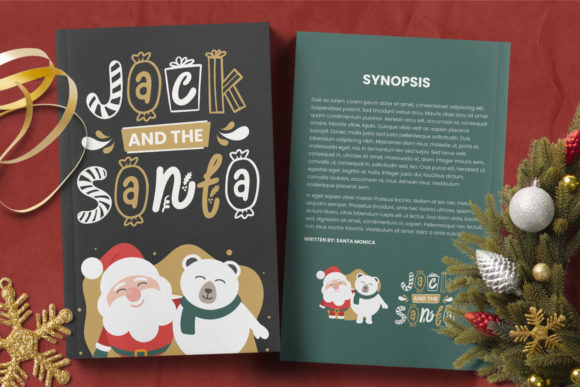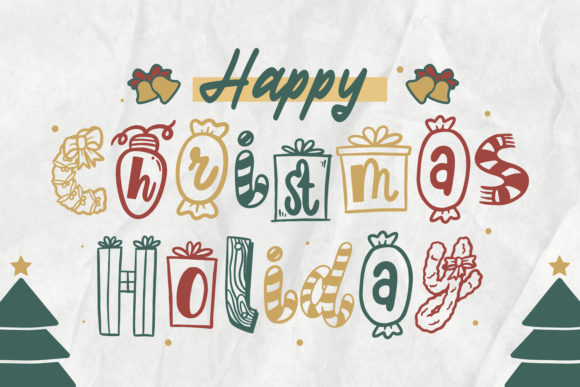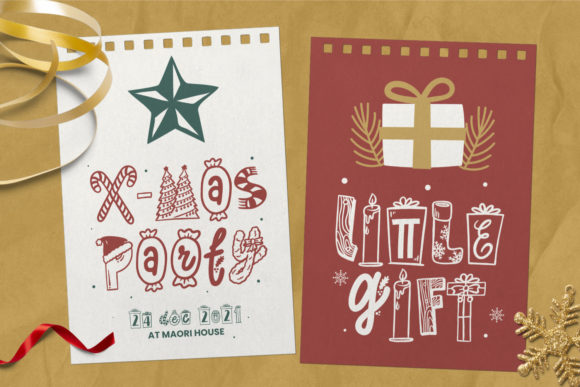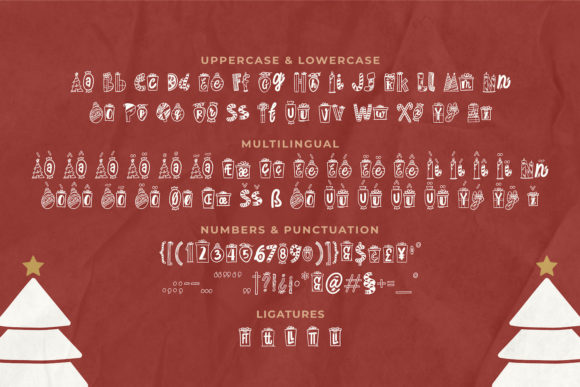
Introducing Giftmas Font: The Ultimate Festive Dingbats Font for Your Holiday Designs
Are you looking for a font that captures the essence of the holiday season? Do you want to add a touch of festivity and joy to your designs, crafts, and projects? Look no further than Giftmas Font, a lovely and festive dingbats font that’s perfect for designers, crafters, and anyone looking to spread some holiday cheer.
What is Giftmas Font?
Giftmas Font is a unique and natural dingbats font that’s specifically designed to bring a sense of festivity and fun to your designs. Its natural and unique style makes it incredibly fitting for a large pool of designs, from holiday cards and invitations to craft projects and DIY decorations. With Giftmas Font, the only limit is your imagination!
Key Features of Giftmas Font
- Festive and Fun Design: Giftmas Font features a range of festive and fun designs, including holiday-themed icons, shapes, and symbols that are perfect for adding a touch of holiday cheer to your projects.
- Natural and Unique Style: The font’s natural and unique style makes it stand out from other dingbats fonts, giving your designs a distinctive and personalized look.
- Highly Versatile: Giftmas Font is incredibly versatile and can be used for a wide range of designs, from holiday cards and invitations to craft projects and DIY decorations.
Uses for Giftmas Font
Giftmas Font is perfect for a wide range of designs and projects, including:
- Holiday Cards and Invitations: Add a touch of festivity to your holiday cards and invitations with Giftmas Font’s range of holiday-themed icons and symbols.
- Craft Projects: Use Giftmas Font to add a personal touch to your craft projects, such as scrapbooking, paper crafting, and DIY decorations.
- Social Media Graphics: Create festive and fun social media graphics, such as holiday-themed Facebook posts and Instagram stories, using Giftmas Font.
- Web Design: Use Giftmas Font to add a touch of holiday cheer to your website or blog, creating festive and fun designs that engage and delight your visitors.
Tips and Tricks for Using Giftmas Font
Here are some tips and tricks for getting the most out of Giftmas Font:
- Experiment with Different Colors: Giftmas Font looks great in a range of colors, so don’t be afraid to experiment and find the perfect color scheme for your design.
- Mix and Match Icons: Giftmas Font features a range of icons and symbols, so try mixing and matching them to create unique and interesting designs.
- Use it with Other Fonts: Giftmas Font pairs well with other fonts, so try using it with your favorite font to create a unique and personalized look.
Giftmas Font is a lovely and festive dingbats font that’s perfect for designers, crafters, and anyone looking to add a touch of holiday cheer to their designs. With its natural and unique style, highly versatile design, and ease of use, Giftmas Font is the ultimate festive font for your holiday designs. So why wait? Download Giftmas Font today and get creative with your holiday designs!